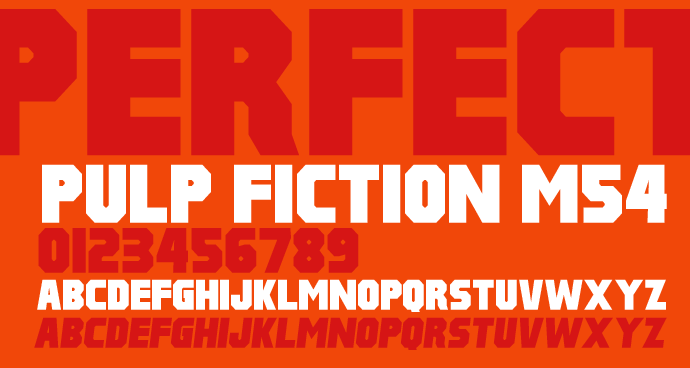
A chunky sharp edged typeface, reminiscent of collegiate style typefaces. Ideal for headlining and signage. If you find this font useful then please consider a donation to justme54s[at]yahoo.co.uk, any amount will be greatly appreciated. A donation isn't necessary to use this font for personal or non-commercial use. I'll be interested to know how people use it so a picture or artwork sent to justme54s[at]yahoo.co.uk would be nice. If you wish to use this font commercially a donation or license is required, please email for further information. Alternatively, for one time commercial use just send details of usage along with your donation so that a return email can be sent as proof of rights to commercial usage. Usage Agreement You may not host this font anywhere online as it is hosted exclusively at FontSpace.com and Dafont.com. Any links for downloads should be directed to FontSpace or Dafont. You may share the font electronically but the Zip file should remain intact with the font alongside all other files as packaged. You may not sell this font, but are allowed to distribute it freely i.e. in magazines. |